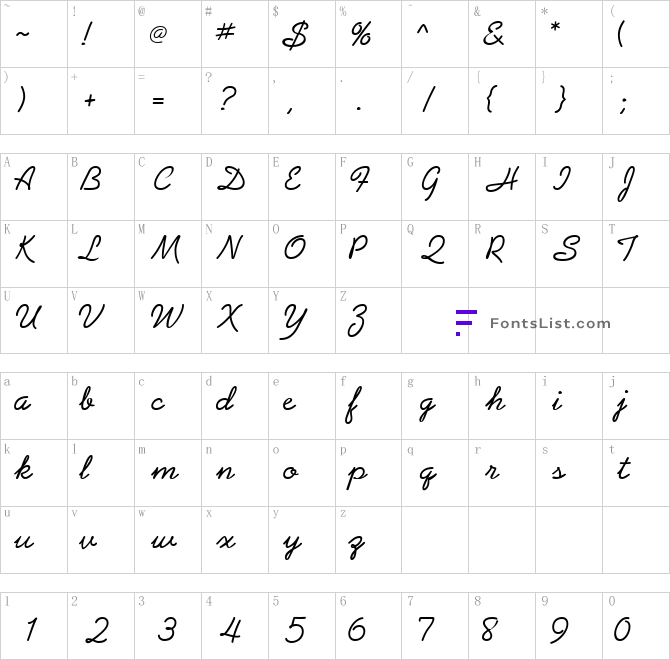
- Font Name:Abrazo Script SSi
Abrazo-Script-SSi-Normal.ttf is a very beautiful artistic font, Abrazo-Script-SSi-Normal.ttf is widely used in the design and printing of various books and pictures,Abrazo-Script-SSi-Normal.ttf has a strong visual impact,Abrazo-Script-SSi-Normal.ttf is a commonly used font in newspapers, magazines and books, and is used in posters, e-commerce Poster design, store design, logo design, font design and other fields.Abrazo-Script-SSi-Normal.